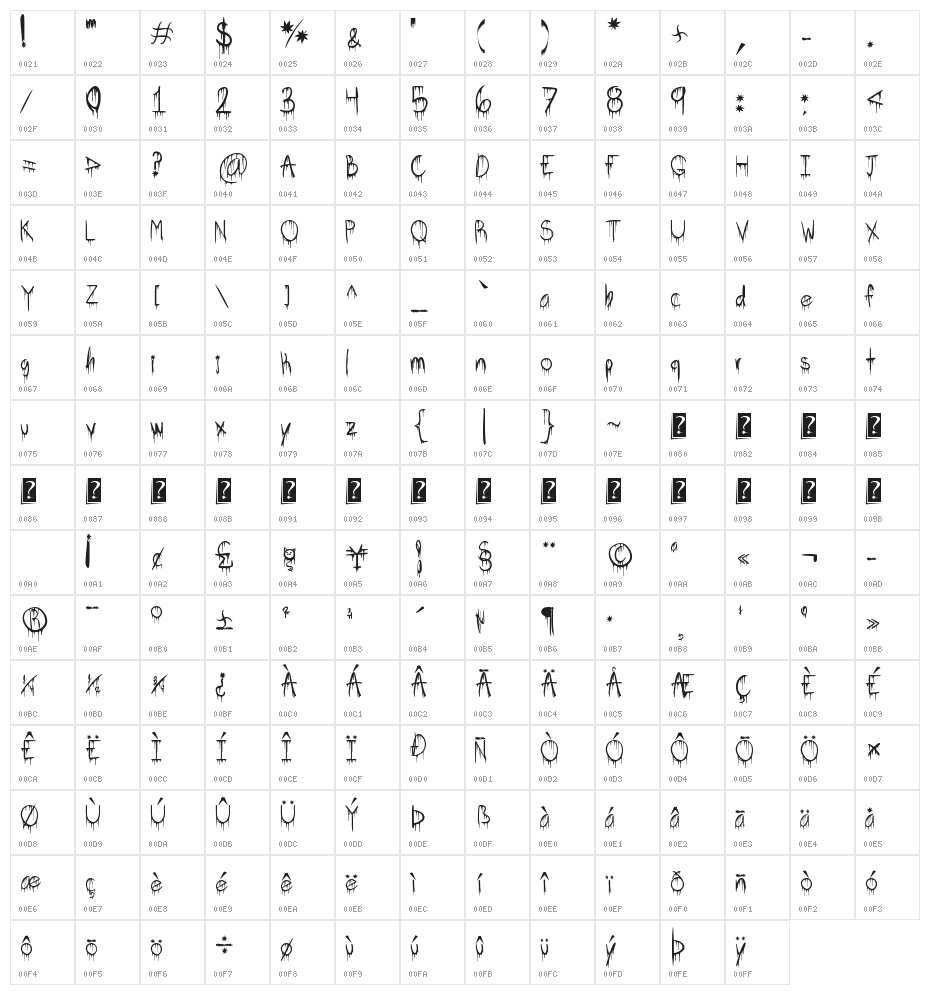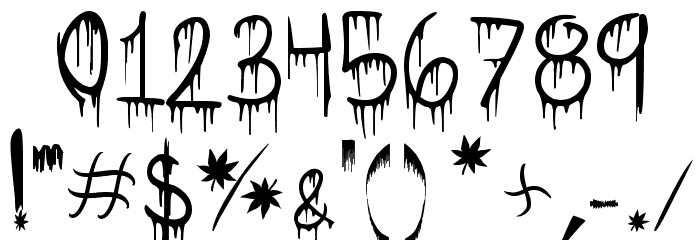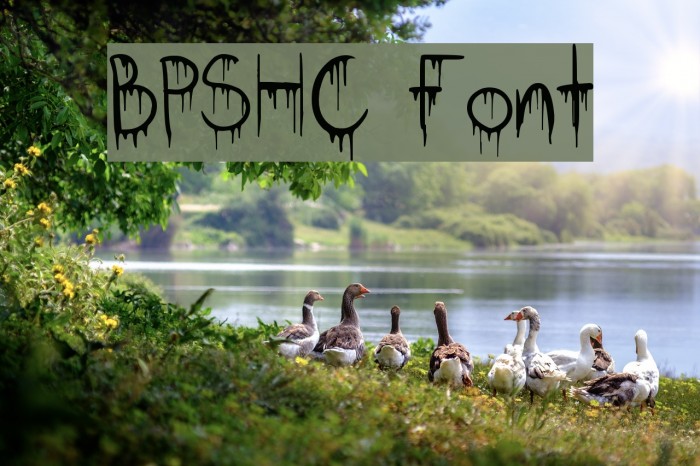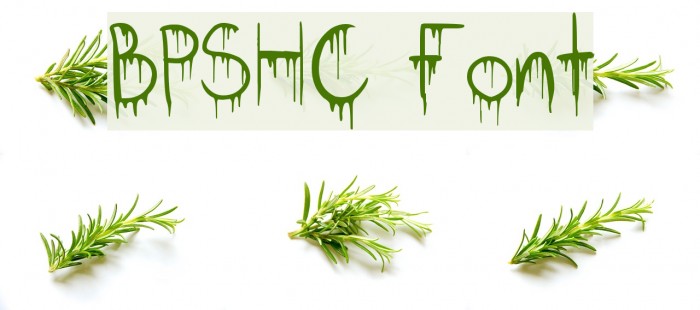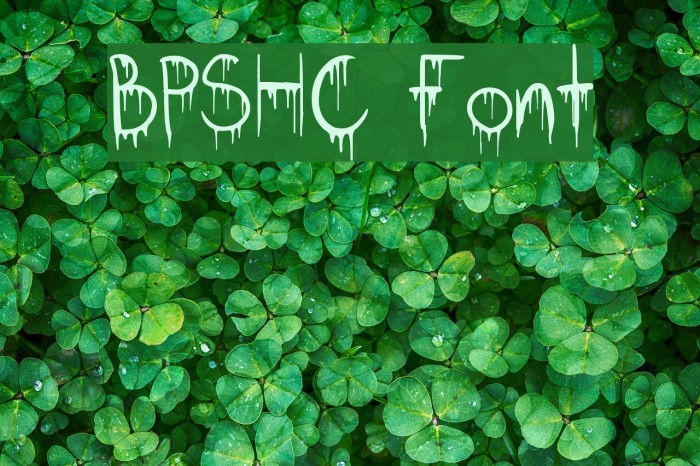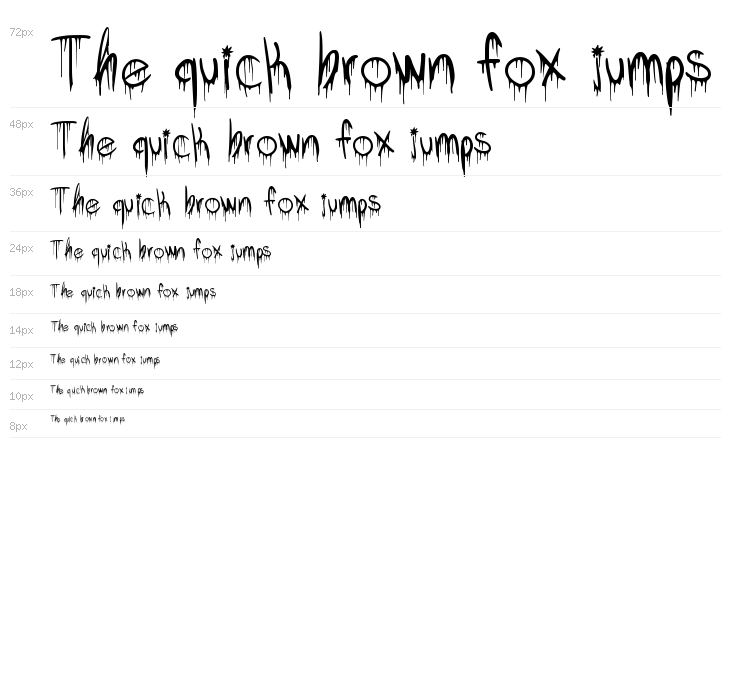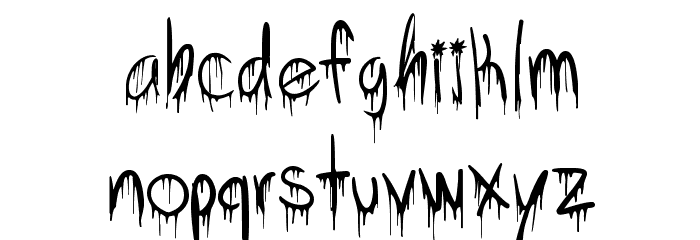
BPSHC Font
BPSHC Description
This font features a unique, dripping effect that gives it a spooky, eerie appearance. The characters appear as if they are melting or oozing, with elongated drips extending from the bottom of each letter. The uppercase and lowercase letters maintain a consistent style, enhancing the overall cohesion of the font. Numbers and special characters are also designed with the same dripping effect, making it suitable for thematic designs. The font's distinct style makes it ideal for Halloween-themed projects or any design requiring a horror or gothic aesthetic.
| Proposed Projects | Ideal for Halloween invitations, horror movie posters, haunted house flyers, or any project needing a spooky touch. |